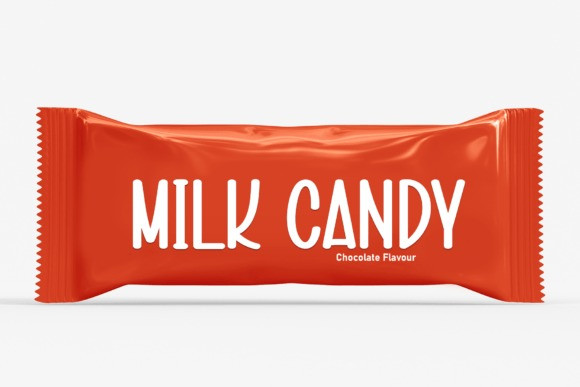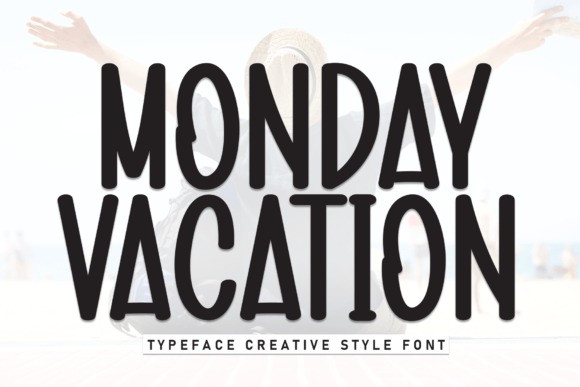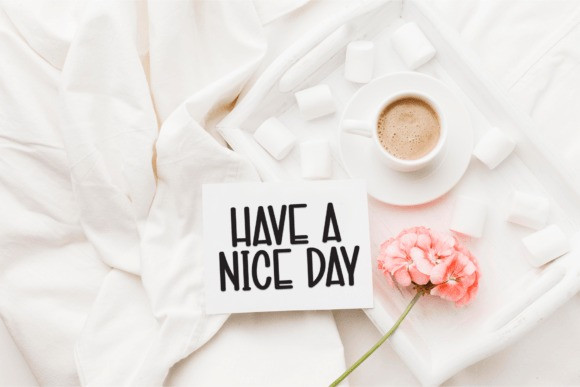
Monday Vacation Display Font
Monday Vacation Display Font is a gorgeous and bold handwritten font, crafted to give your headlines and logotype projects a stylish touch. This font reads as strong, confident, and dynamic and can add tons of nostalgic character to your designs.